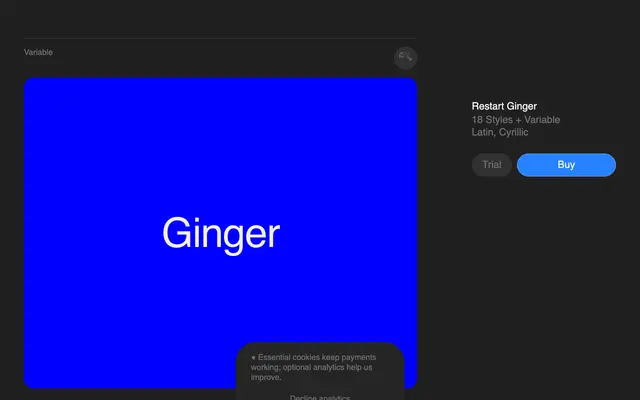
Restart Ginger
Superior Type · Vojtěch Říha
A neo-grotesque with selectively reworked characters that inject expressive tension into an otherwise familiar structure.
Built on the foundation of Superior Type's Restart Hard, Restart Ginger takes the neo-grotesque as its base and deliberately disrupts it by partially or radically reworking individual characters. The result is a family of 18 styles spanning Thin to Black with matching italics, plus a variable font, covering Latin and Cyrillic across 351 languages. It sits between workhorse neutrality and expressive display work, with nine stylistic sets and a full suite of OpenType features giving designers granular control.
The foundry explicitly describes Restart Ginger as taking the neo-grotesque sans-serif as its starting point, with selected characters reworked to inject expressive tension while preserving readability.